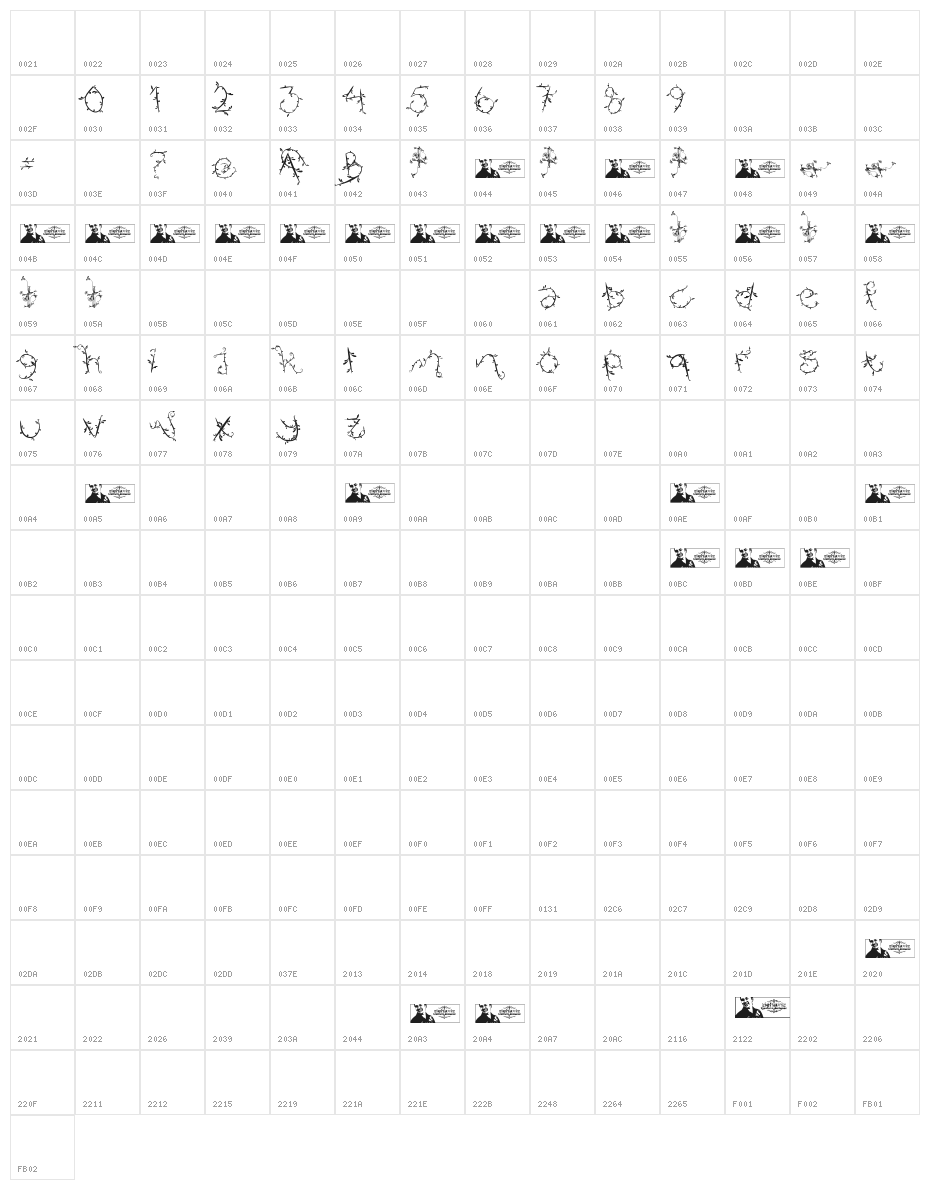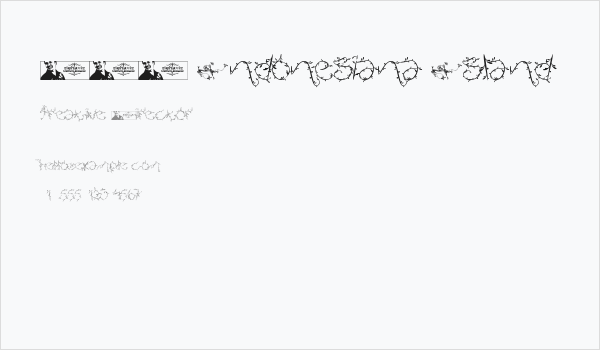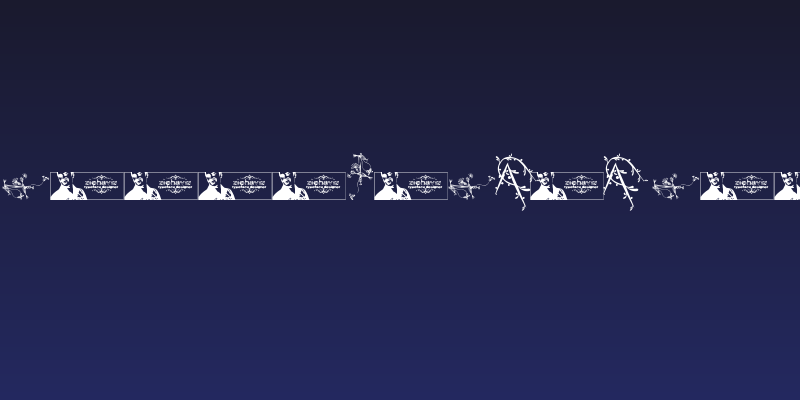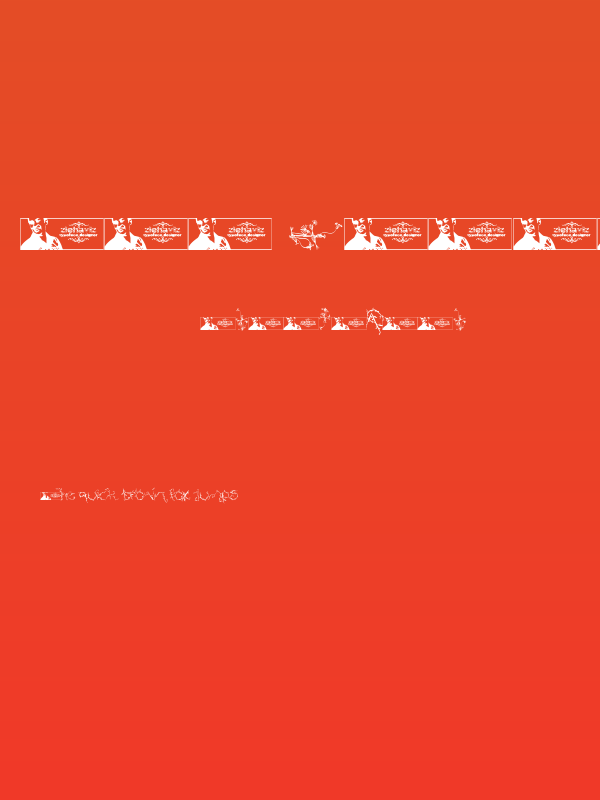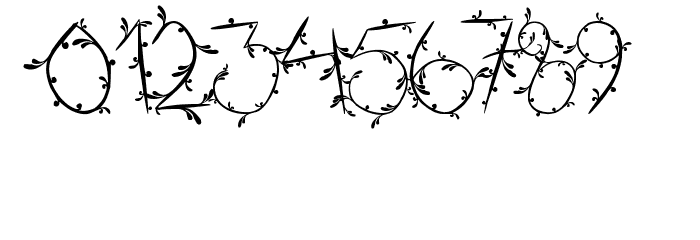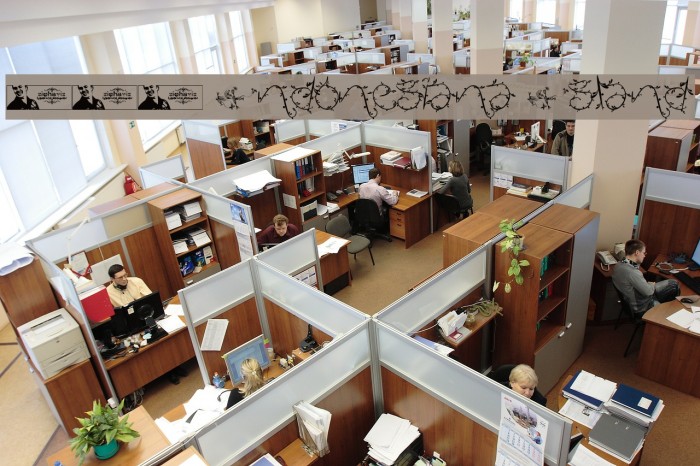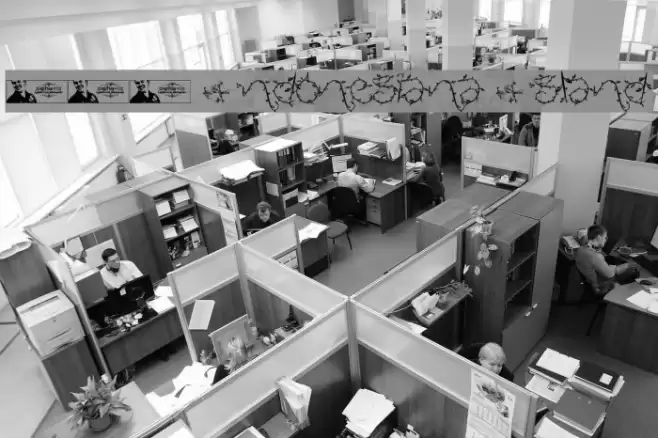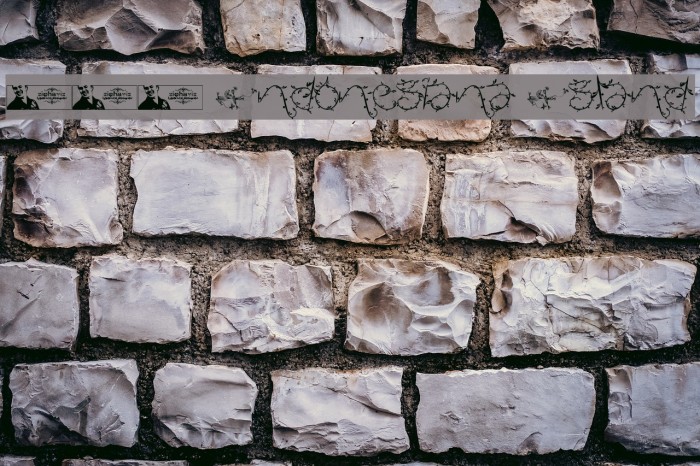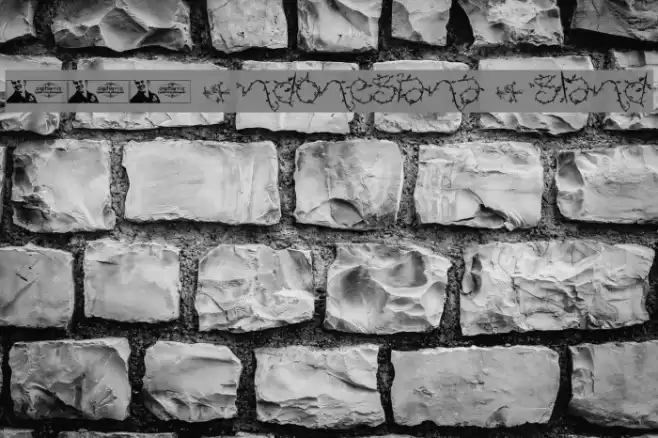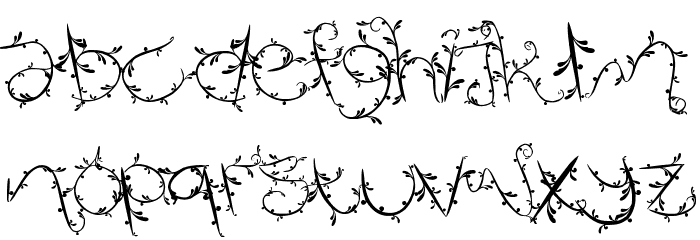
FTF Indonesiana Island Font
FTF Indonesiana Island Description
This font features an intricate and decorative design, with each character adorned with vine-like embellishments that create a whimsical and organic feel. The letters are interconnected with delicate curves and flourishes, giving it a unique and artistic appearance. The overall style is reminiscent of nature, with elements that evoke the imagery of leaves and tendrils. This font is highly decorative, making it suitable for projects that require a touch of elegance and creativity. The characters maintain a consistent style throughout, with a balance between the decorative elements and readability.
| Use Case | Logos, Headlines, Artistic projects |
| Proposed Projects | Ideal for wedding invitations, greeting cards, nature-themed branding, and artistic posters. |